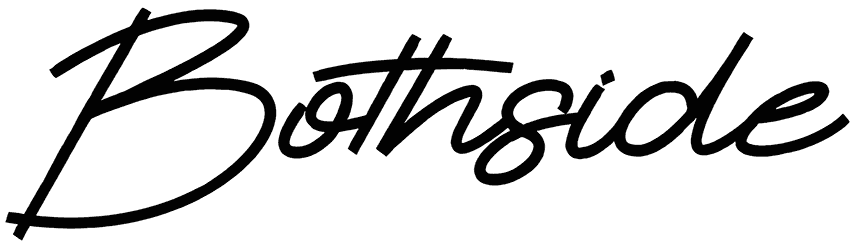
Bothside Font
Casual and curly lettering is a timeless style for any design, from formal to informal ones, and this handwritten font has such a visual. The Bothside font consists of full characters, which means you can count on it for short or extended texts. Give it a chance, and if you need to see more, visit our ever-growing script font collection and select your favorite.